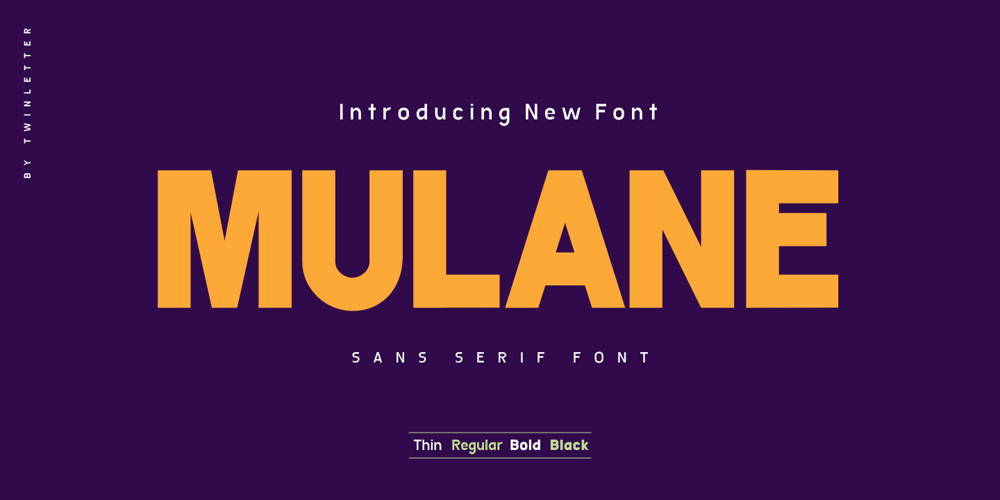
Mulane Font Family was designed by Rozikan and published by Twinletter. Mulane contains 4 styles and family package options. Mulane, our newest sanserif typeface, is now available.Mulane is a versatile font that may be used for a variety of purposes. This typeface is ideal for headlines, product packaging, magazine layouts, invitation cards, advertising, wedding designs, social media posts, and many other branding and design tasks. The fonts’ sleek and appealing appearance is due to their bold and strong letters. Fonts that are robust, bold, and clear, making your work look true and attractive.of course, your various design projects will be perfect and extraordinary if you use this font because this font is equipped with a font family, both for titles and subtitles and sentence text, start using our fonts for your extraordinary projects.